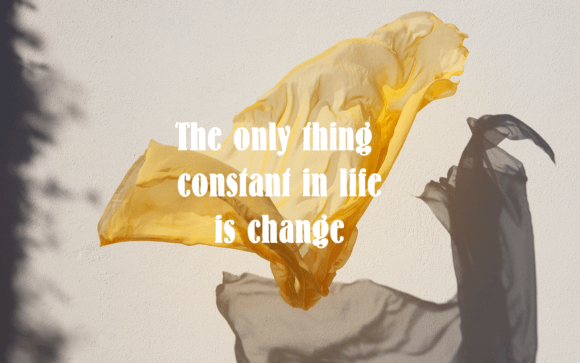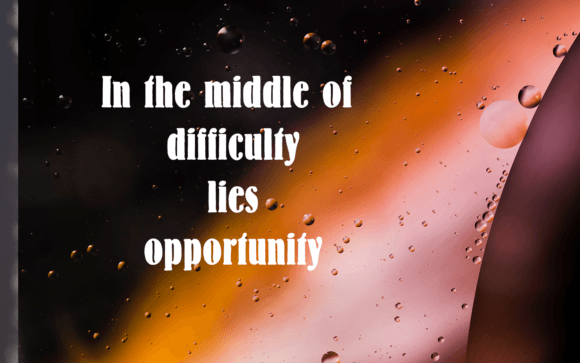
Introduction to Contour Bold Font
The moment of truth arrives when you’re about to unveil your latest creative project. The anticipation builds up as you carefully curate every detail, from the color palette to the typography. And then, you need a font that truly makes your title pop. This is where the Contour Bold Font comes into play – a game-changing design resource that elevates your branding and presentations to new heights.
As a designer, you understand the importance of a high-quality font that exudes confidence and style. The Contour Bold Font delivers just that, with its bold strokes and elegant curves effortlessly drawing the eye. Whether you’re working on a free download or a commercial project, this versatile font is sure to make a lasting impression, even with a transparent background.
With its unique blend of strength and fluidity, the Contour Bold Font is the perfect addition to any design arsenal. Its modern yet approachable feel makes it an ideal choice for impactful branding or striking presentations, ensuring that your message stands out with bold elegance.
Key Features of Contour Bold Font
- High-quality design resource suitable for various creative projects, including logos, branding, and typography.
- Supports a transparent background, allowing for seamless integration with any design or image.
- Designed with a bold and modern aesthetic, perfect for making a statement in any creative project.
- Resolution-independent, ensuring crisp and clear typography at any size or resolution.
- Perfect for designers looking for a high-quality, free font that can elevate their design projects.
Honest Review: Contour Bold Font
I recently stumbled upon the Contour Bold Font and I have to say, it’s been a game-changer for my design projects. ✨ The high-quality font has added a level of sophistication to my creative work that I was missing before.
- ✨ High-quality design that adds sophistication to creative projects
However, I do have a few minor complaints. ⚠️ The font can be a bit tricky to work with on some platforms, and it would be great if there were more customization options available.
Overall, I’m really impressed with the Contour Bold Font and would highly recommend it to any designer looking for a high-quality, free design resource. It’s been a valuable addition to my design arsenal and I’m excited to see how I can continue to use it in my creative projects.
To get the most out of Contour Bold Font, use it with a transparent background to create a clean and modern design. You can also experiment with different font sizes and styles to add visual interest to your design.
The Contour Bold Font is commonly used in logos, branding materials, and other design elements where a bold and modern look is desired. It is also used in digital products such as mobile apps and websites.